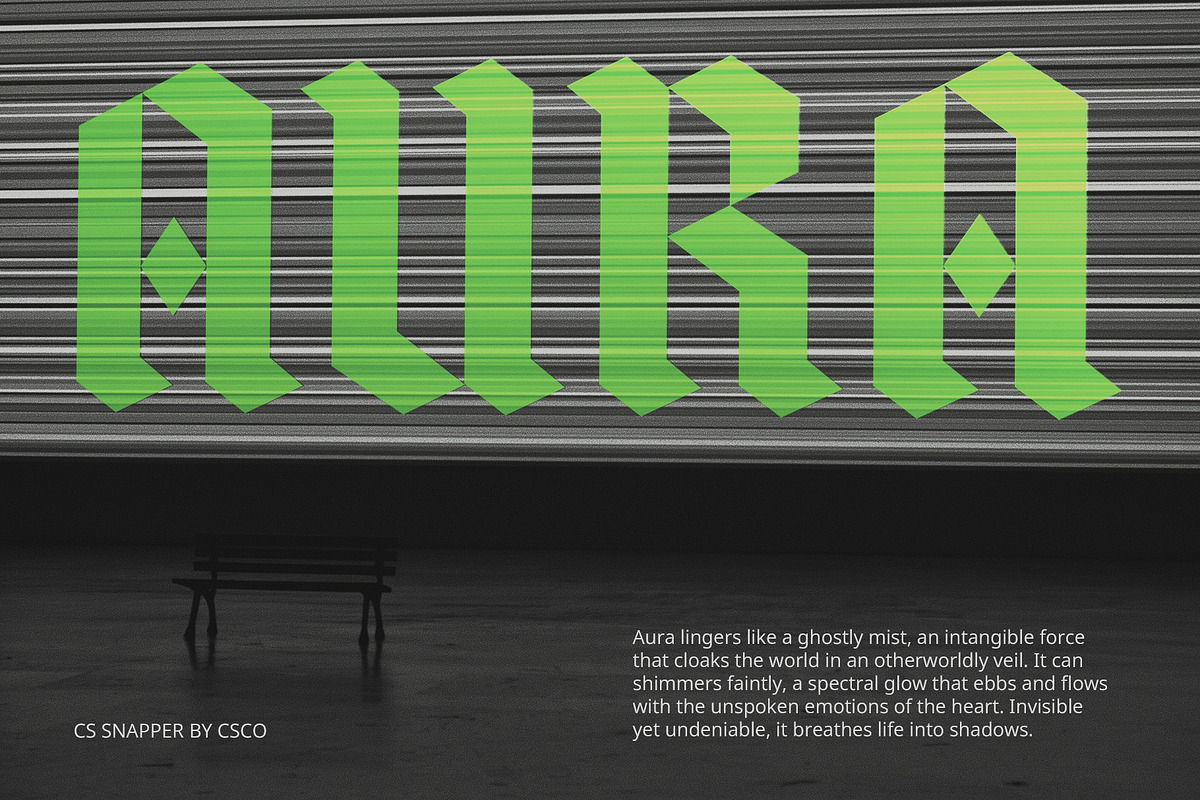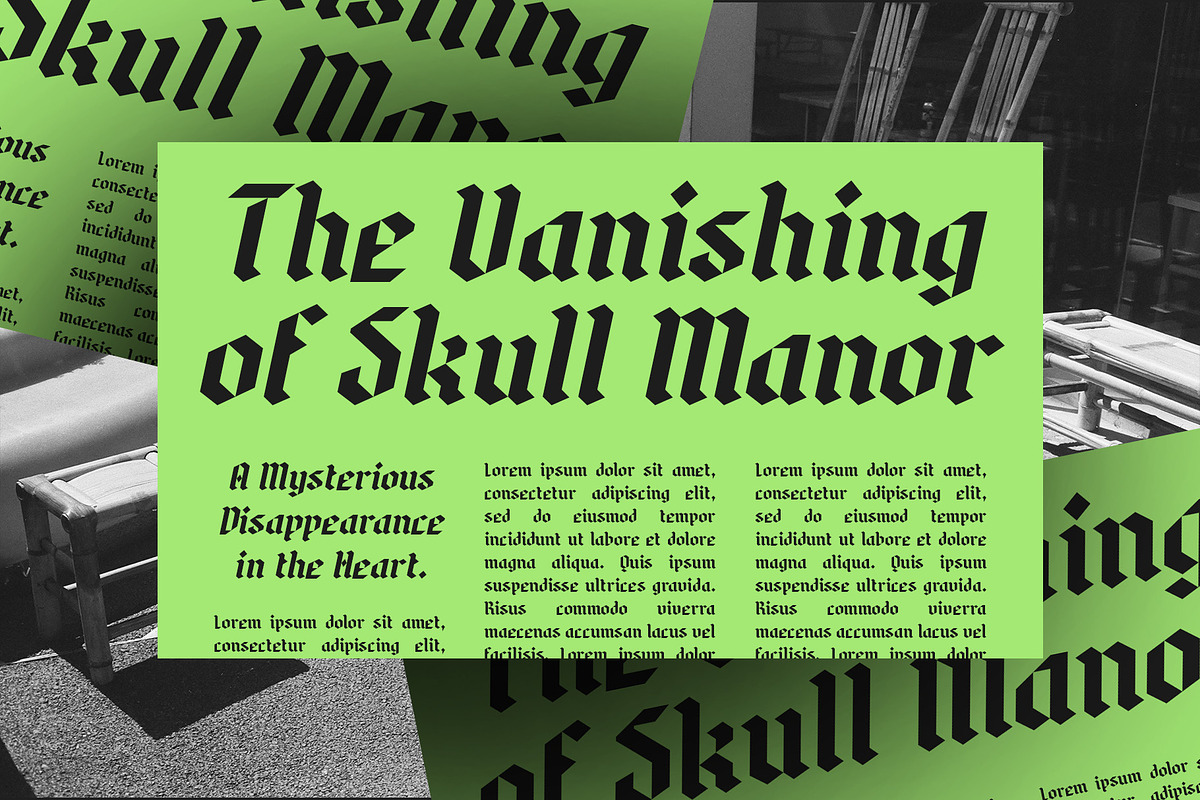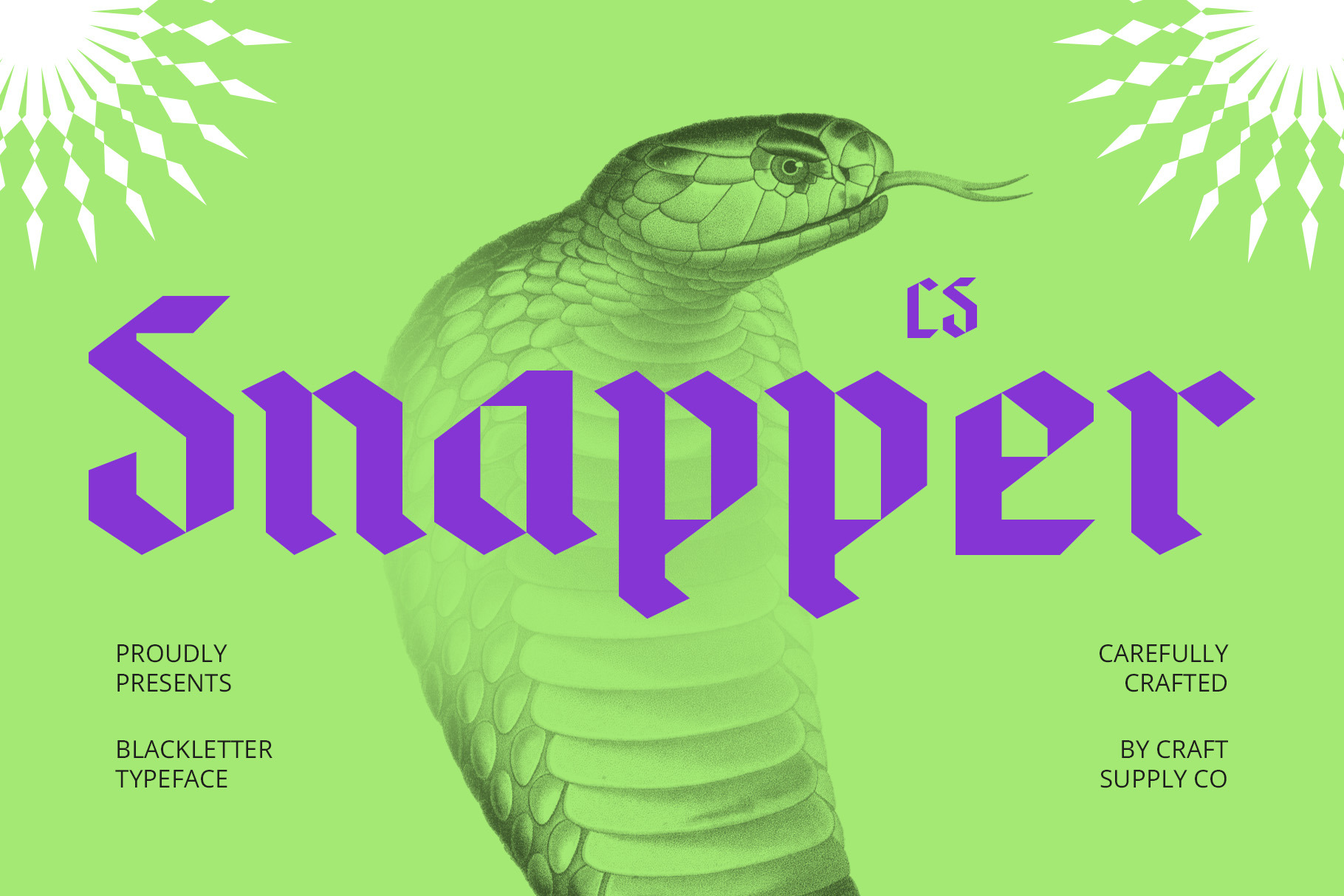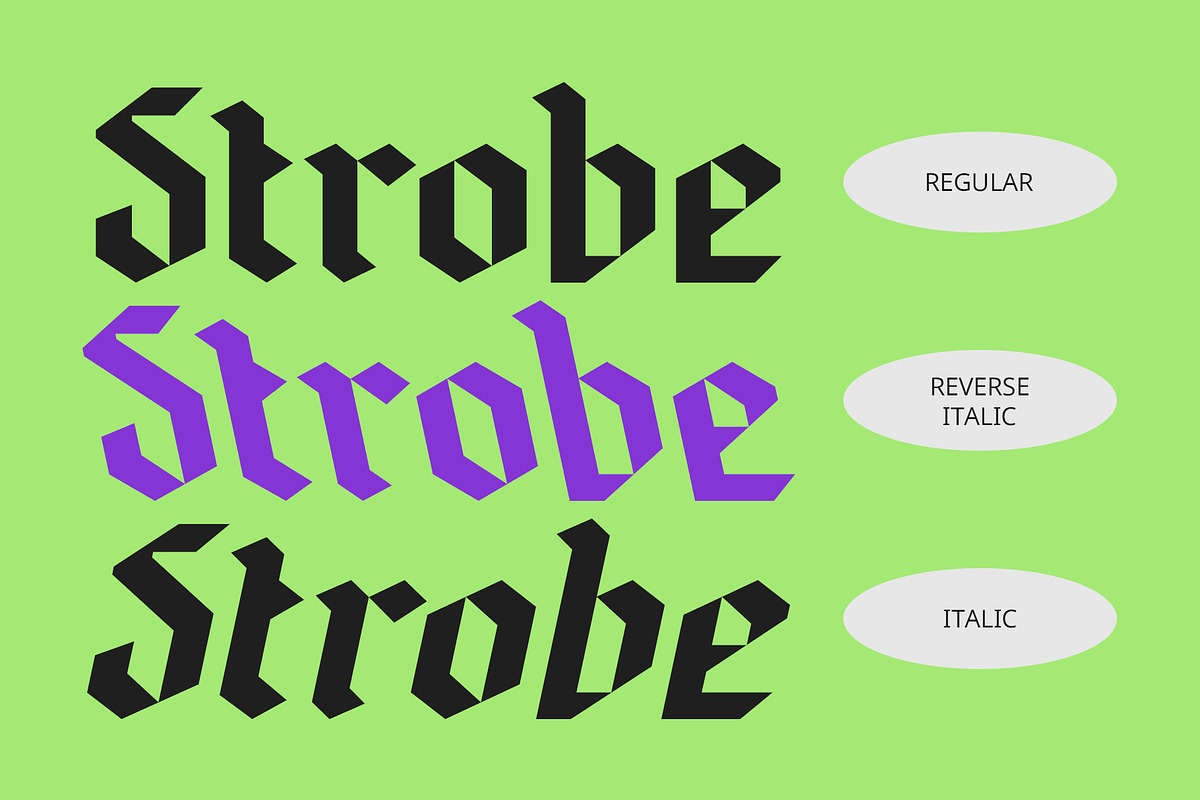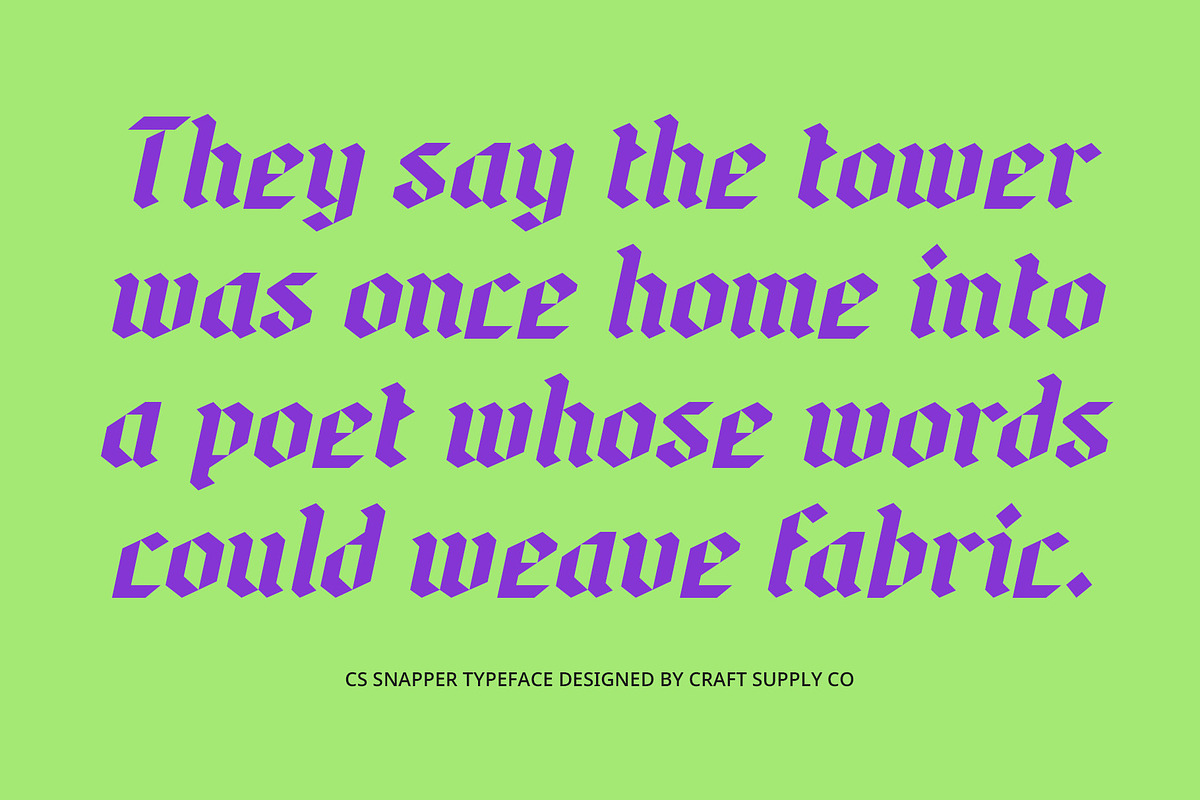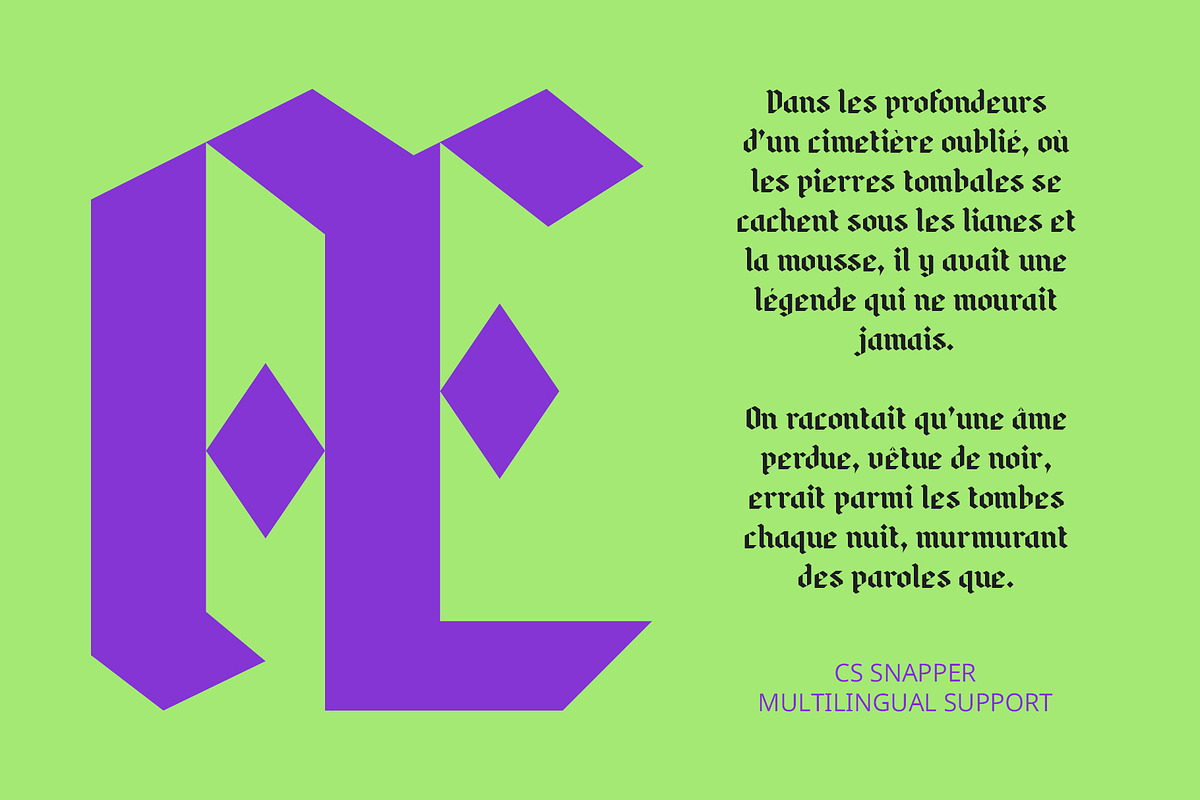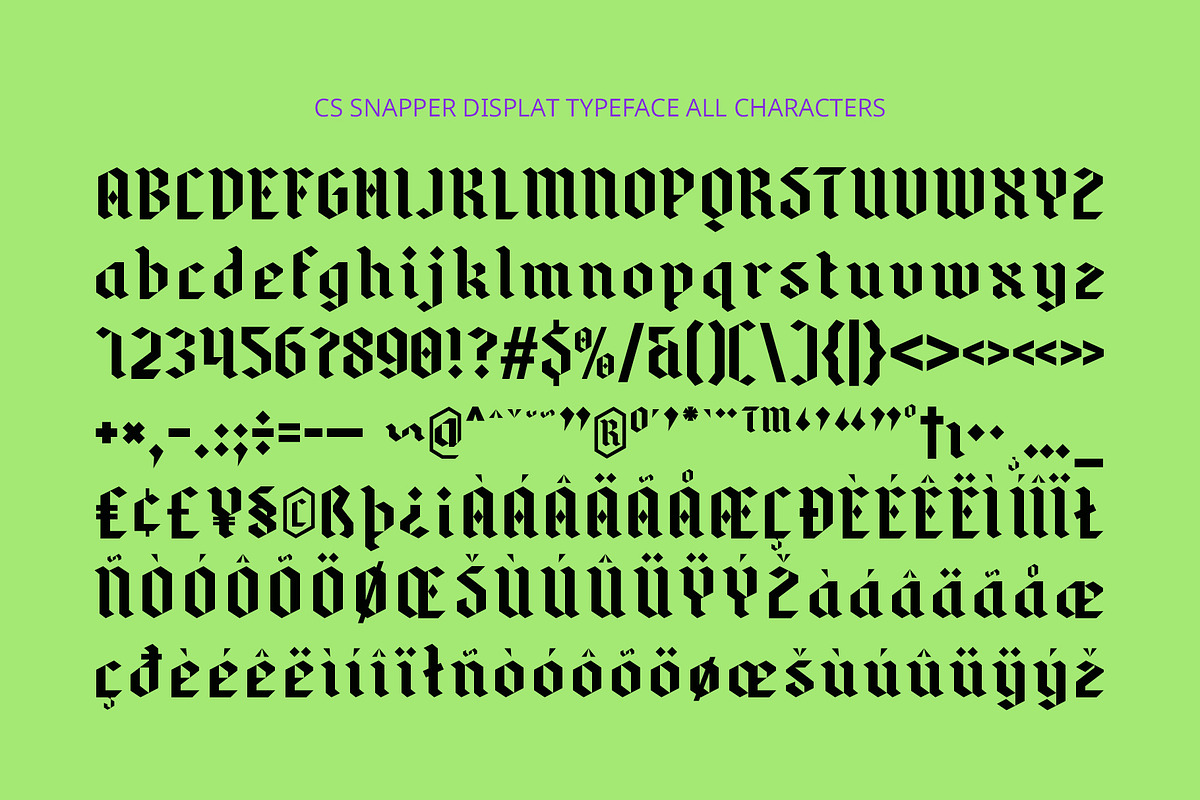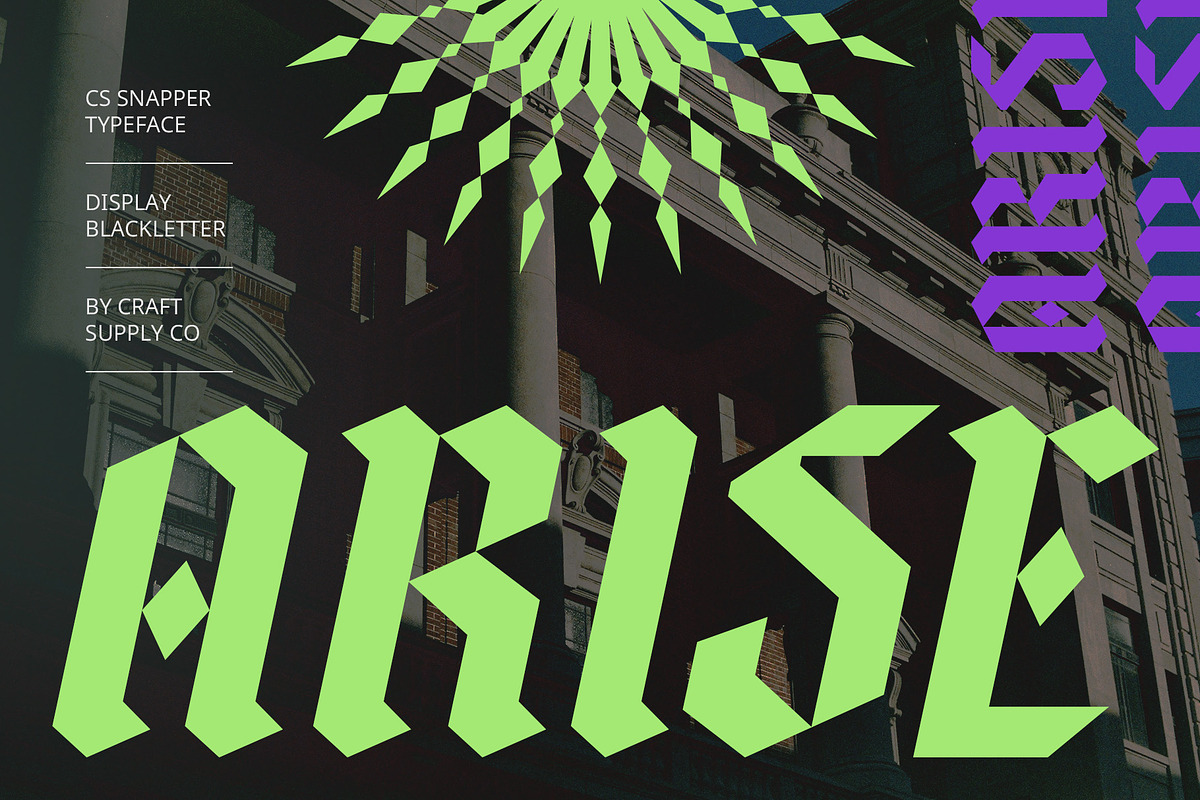
CS Snapper – Blackletter Font
CS Snapper – Bold Modern Blackletter Font
A Contemporary Twist on a Classic Style CS Snapper is a modern blackletter display font that combines the timeless elegance of traditional blackletter design with a bold, contemporary approach. Featuring sharp lines, striking serifs, and bold strokes, this typeface exudes authority and sophistication, while its modern elements make it relevant and impactful in today’s design landscape.
Strong, Dramatic, and Assertive With its commanding presence and dramatic flair, CS Snapper creates an impression of strength and elegance. The sharp angles and thick strokes emphasize boldness and stability, while the refined detailing ensures a high level of sophistication. This font stands out with its ability to evoke both historical depth and modern relevance, making it versatile and eye-catching.
Perfect for Bold, Authoritative Designs CS Snapper is ideal for designs that require a sense of authority and distinction, such as corporate logos, book titles, event posters, and gothic or vintage-themed projects. Its striking blackletter style combined with a contemporary edge creates a powerful, memorable aesthetic, making it perfect for designs that need to command attention while retaining a sense of elegance and tradition.
- CS Snapper Regular
- CS Snapper Italic
- CS Snapper Reverse Italic